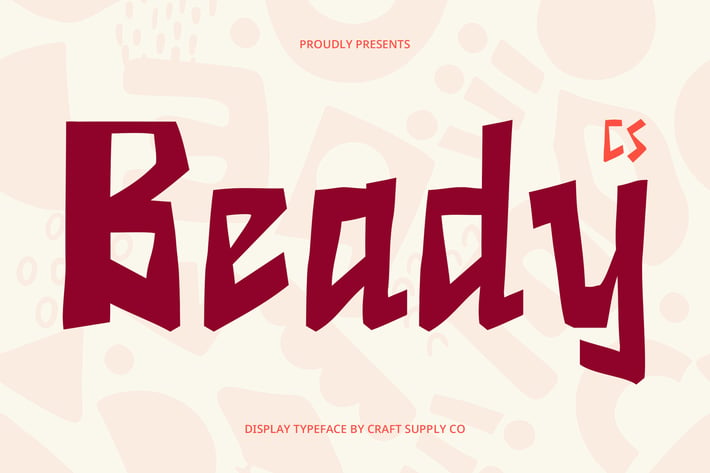
Beady – Ancient Greek Font
CS Beady Font – A Playful Take on Ancient Greek Typography
A Display Font with Classical Greek Inspiration
CS Beady is a display font that draws inspiration from Ancient Greek letterforms, combining historical influences with a modern and funky twist. The design reflects engraved aesthetics, unique curves, and geometric precision, giving it a timeless yet contemporary feel.
A Lively and Expressive Ancient Aesthetic
Unlike traditional Greek-inspired fonts, CS Beady adds a cheerful and dynamic personality, making it bold, engaging, and full of character. Its fluid strokes and engraved details create a sense of movement and creativity, making it perfect for designs that blend history with modern vibrancy.
Versatile for Mythology, Festivals, and Branding
This font is ideal for mythology-themed designs, cultural events, festival promotions, and unique branding projects. Whether you’re working on posters, packaging, editorial layouts, or digital media, CS Beady provides a distinct and eye-catching Greek-inspired aesthetic.
Perfect for Designs That Merge History and Modern Fun
CS Beady captures the essence of ancient craftsmanship while introducing a fresh and lively energy. It’s an excellent choice for creatives looking to evoke a historical atmosphere with a bold, expressive, and unconventional approach.